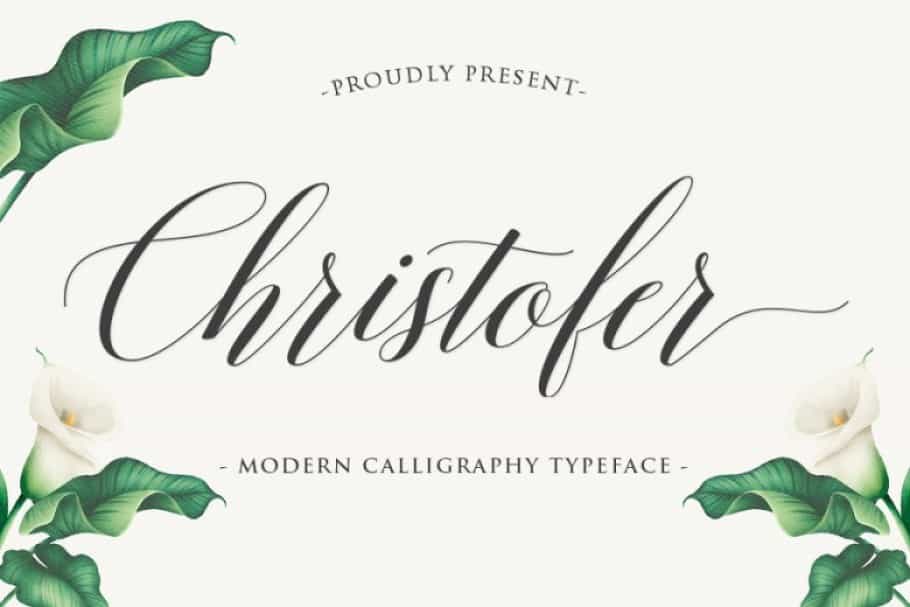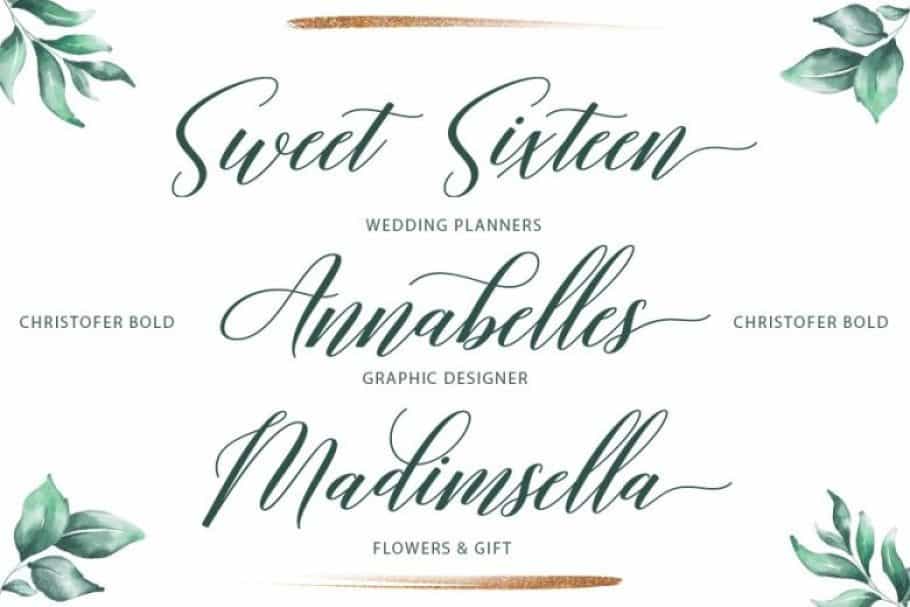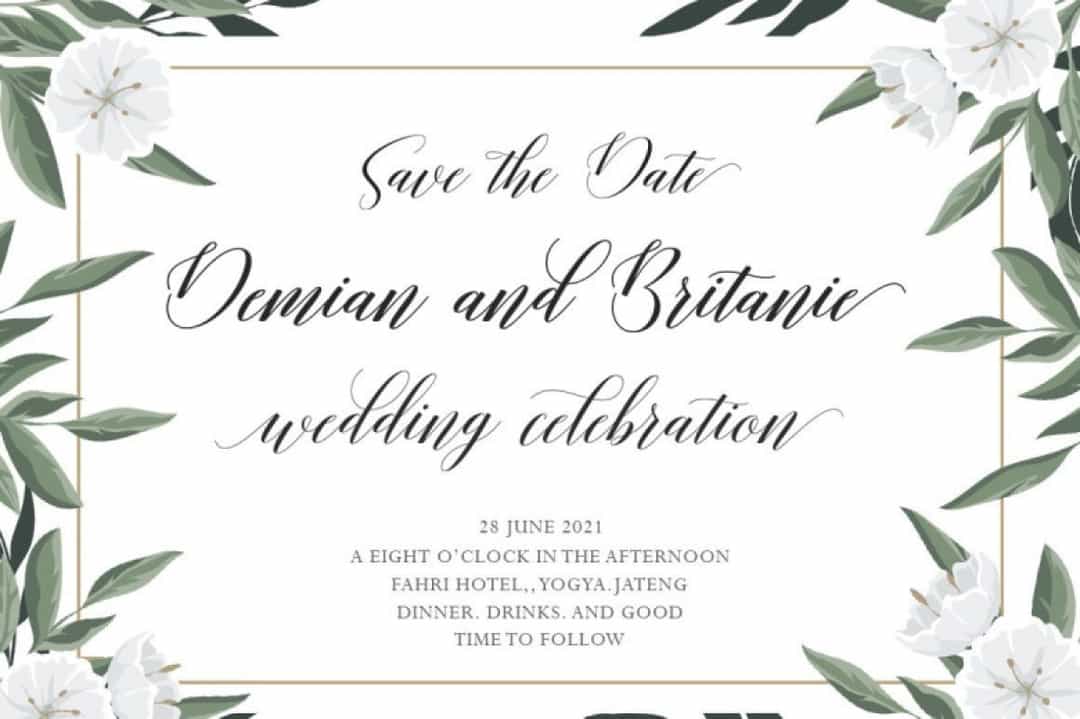
Christofer Calligraphy Font is an elegant and romantic calligraphy script typeface with characters that dance across its base, perfect for adding some luxurious sparkle to any design project. Plus, being PUA encoded means accessing all those incredible ligatures and glyphs quickly!